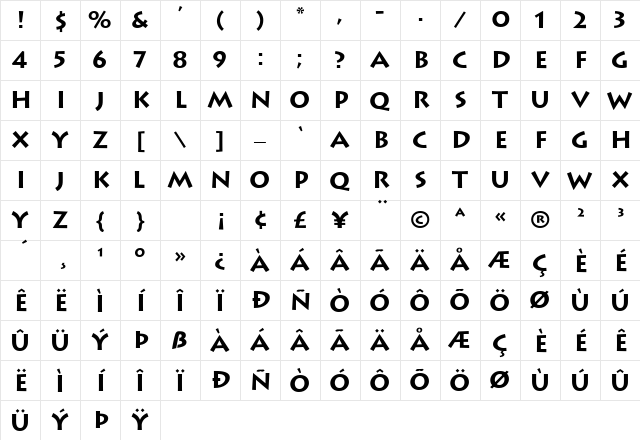
Listium Bold
Design Context for Listium
Listium is a composed and adaptable typeface that performs quietly and consistently across a wide range of design contexts. Its bold stroke weight gives it real presence on the page.